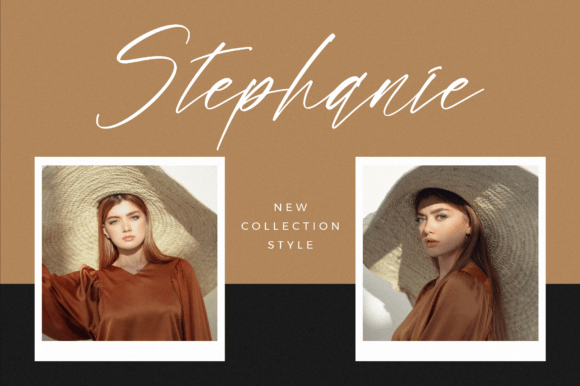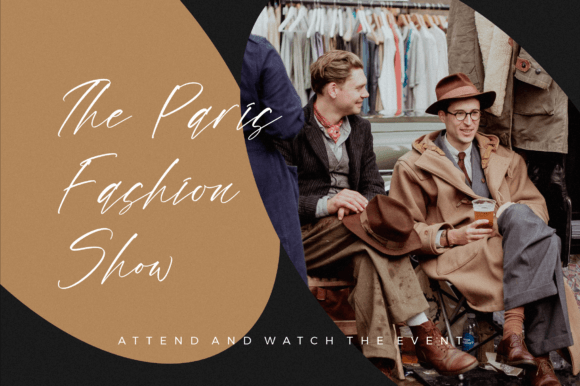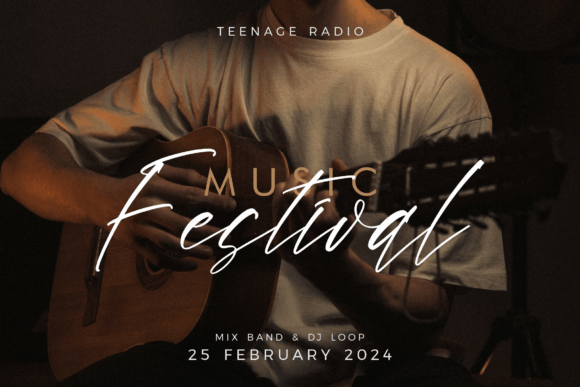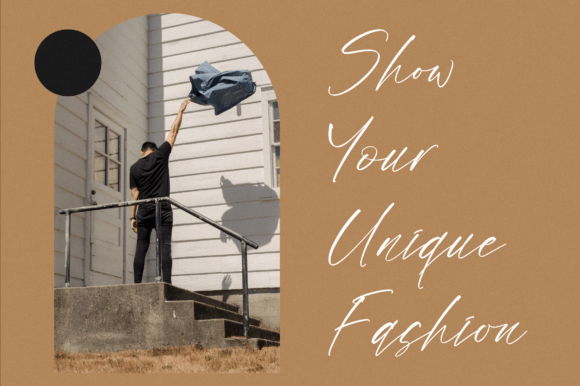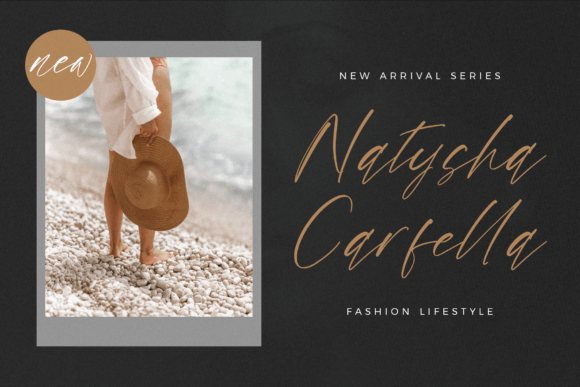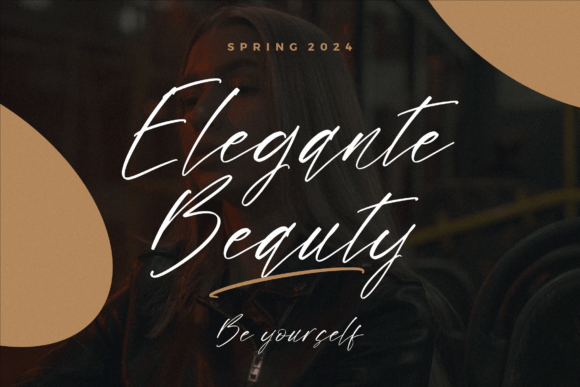
Discover the Perfect Script: Bondistta Font
Have you ever stared at a blank page, waiting for the perfect font to bring your creative vision to life? I know I have! The blank page can be intimidating, but sometimes, all it takes is one amazing font to spark the inspiration you need.
Enter Bondistta Font, the modern script font from Letterfabric Studio that’s been making waves in the design world. This beautiful font is more than just a pretty face – it’s a versatile tool designed to elevate any project, from logos and branding to homeware designs and product packaging. With its elegant, handwritten feel, Bondistta Font adds a touch of sophistication and personality to even the simplest of designs.
Bondistta Font Key Features
- Unique Characteristics: The font features a unique blend of modern and vintage elements, with intricate details and subtle texture, making it perfect for designs that require a touch of sophistication and elegance.
Bondistta Font Review
As a designer, I was excited to dive into the Bondistta font and see what it had to offer. The font’s unique blend of modern and vintage elements caught my eye, and I was eager to put it to the test.
- Unique blend of modern and vintage elements, making it perfect for projects that need a touch of sophistication.
- Wide range of weights and styles, allowing for versatility in typography.
- Good legibility, making it easy to read even at smaller font sizes.
- Works well in both digital and print applications.
- Some characters may not be perfect, with minor inconsistencies in design.
- Limited language support, which may be a concern for designers working with non-Latin scripts.
- Not as comprehensive as some other fonts in terms of character set and special characters.
Overall, I think the Bondistta font is a solid choice for designers looking for a unique and stylish font. While it has some limitations, its strengths far outweigh its weaknesses. I’d definitely consider using it for projects that require a touch of elegance and sophistication.
Tips for Getting the Most Out of Bondistta Font
Here are some tips to get the most out of Bondistta Font:
- Use Bondistta Font for headings and titles to add a touch of elegance.
- Combine Bondistta Font with other fonts to create a unique and interesting typography.
Common Use Cases for Bondistta Font